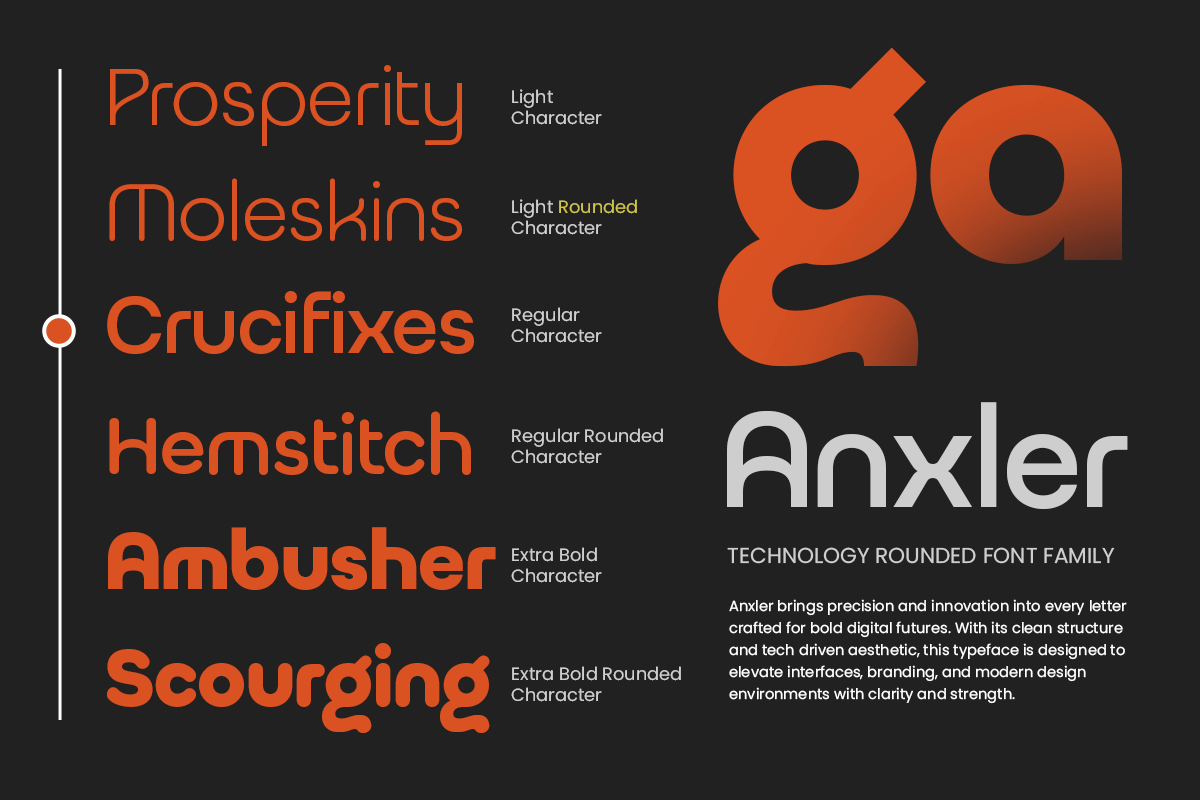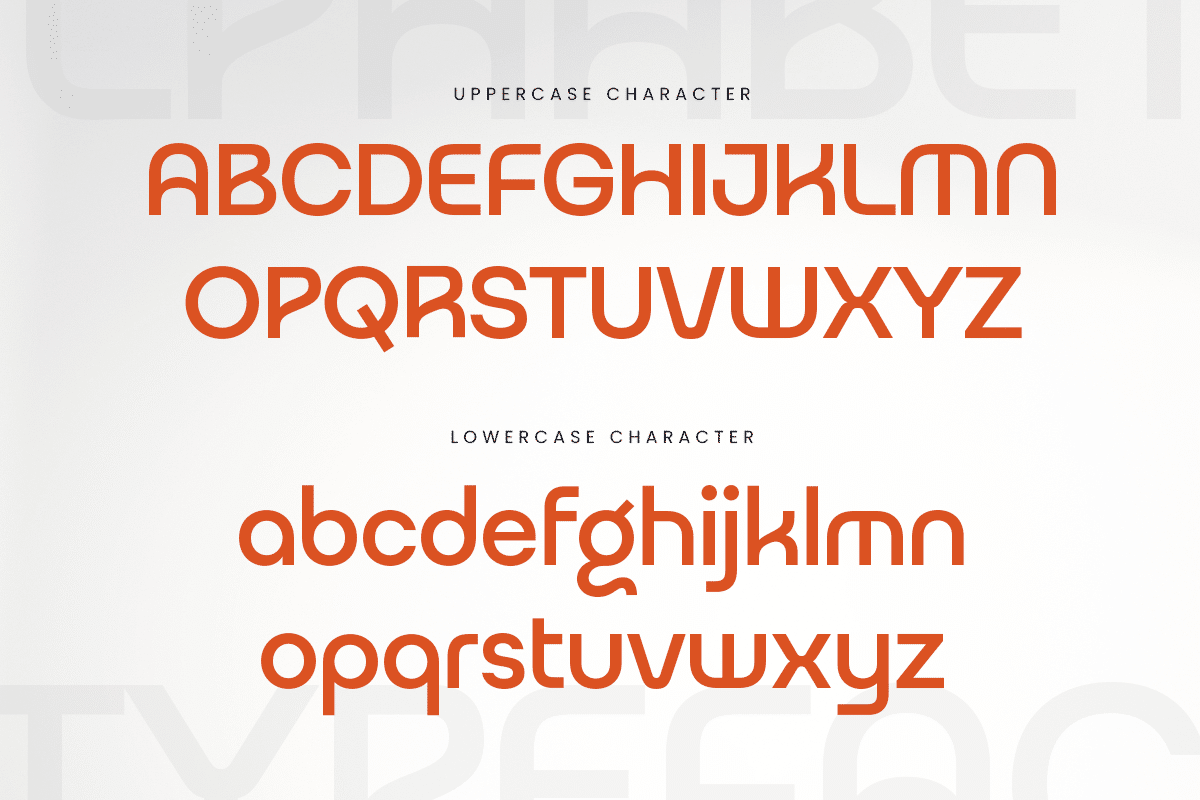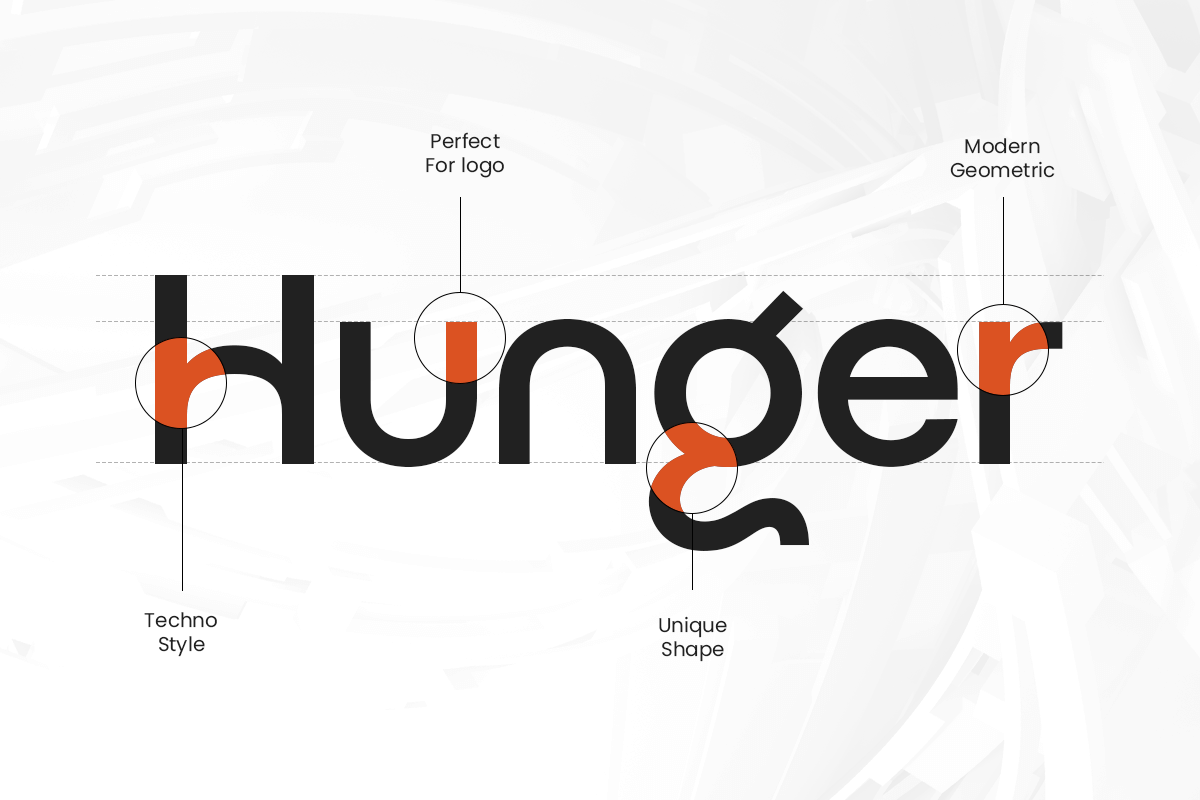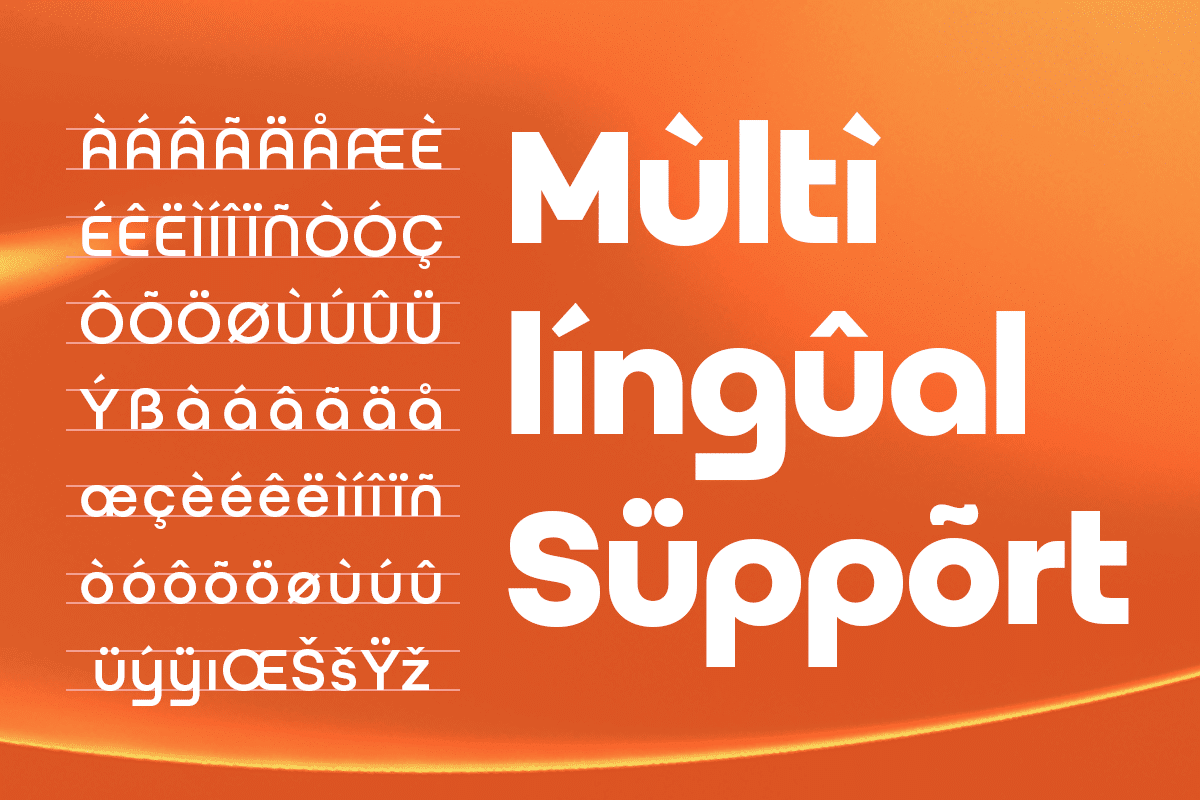
Anxler – Technology Corporate Font Family
ANXLER is a technology corporate font family designed to meet the needs of today’s fast-paced, digital-driven world. With its clean, modern design and versatile style options, ANXLER provides the perfect solution for high-tech branding, corporate identity, and digital applications.
This font family includes a variety of weights and styles, giving you the flexibility to create strong, cohesive branding across print and digital media. Whether you’re designing a logo for a tech startup, building a professional corporate website, or crafting modern business collateral, ANXLER ensures your brand exudes sophistication and precision.
ANXLER – Technology Corporate Font Family Features
- A versatile font family with multiple weights and styles
- Ready with 6 Weights: Light, Light Rounded, Regular, Regular Rounded, Bold, Bold Rounded
- Clean, minimalist design ideal for corporate branding
- Includes uppercase, lowercase, numerals, and punctuation
- Perfect for tech, digital, and business branding
- OpenType features for advanced typographic styling
Multilingual support for
Bring clarity and professionalism to your designs with ANXLER – the ultimate font family for modern corporate branding and technology. 💼🚀